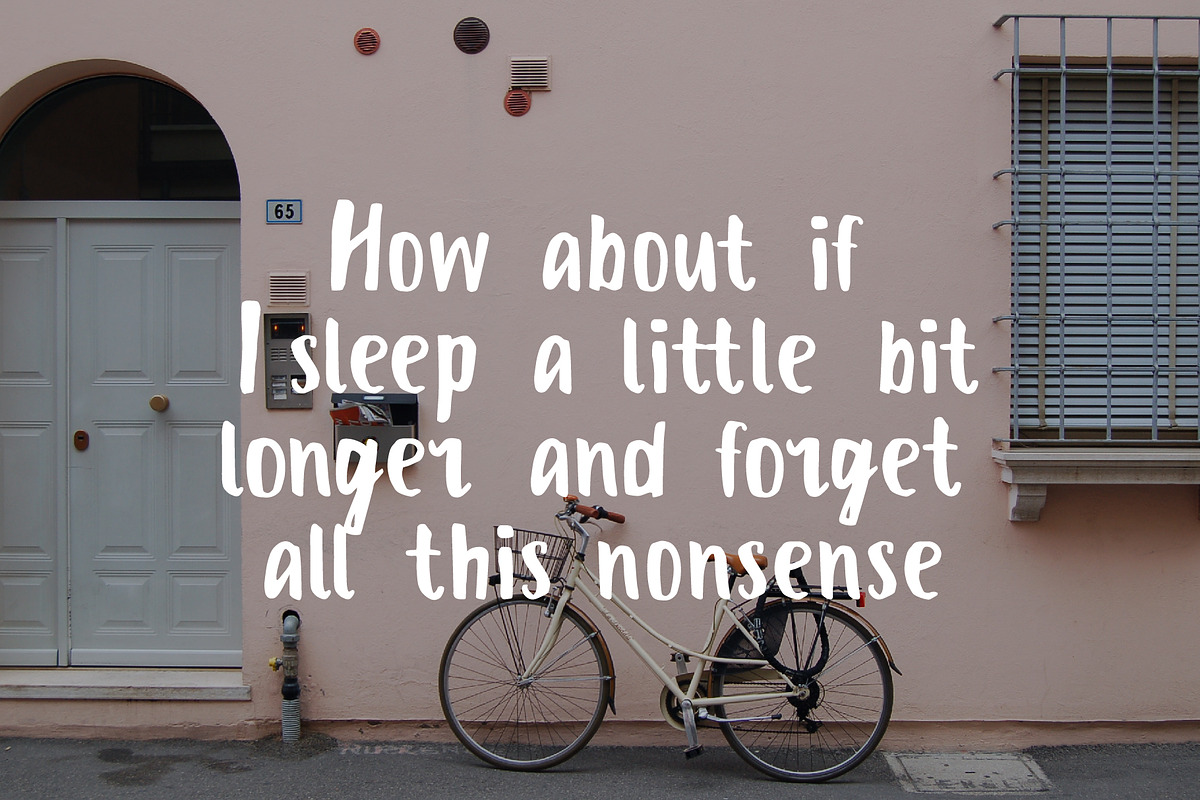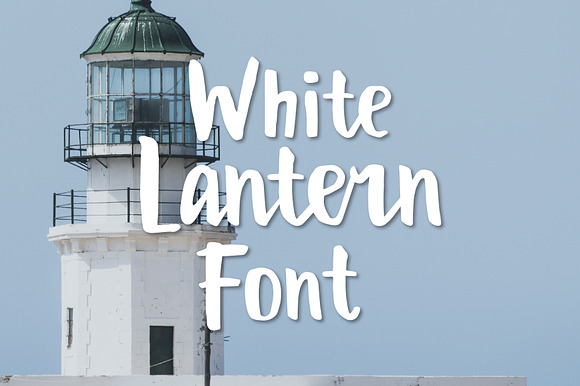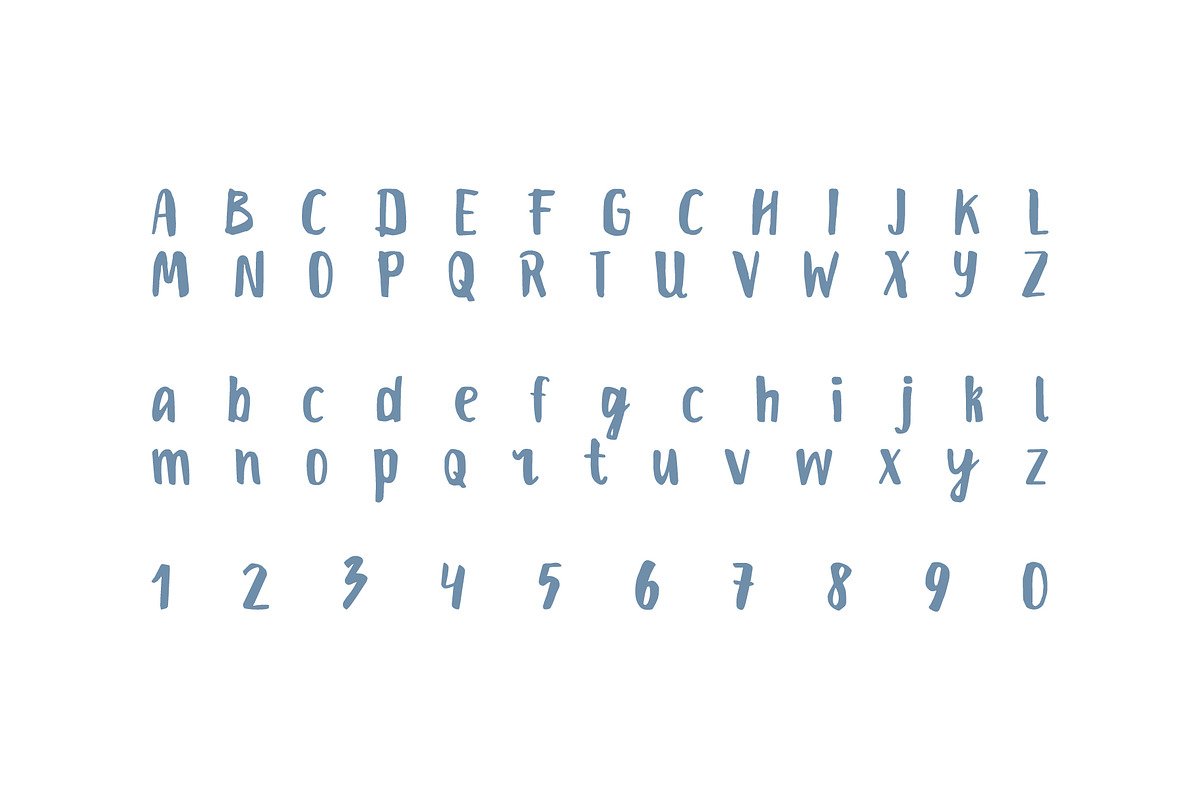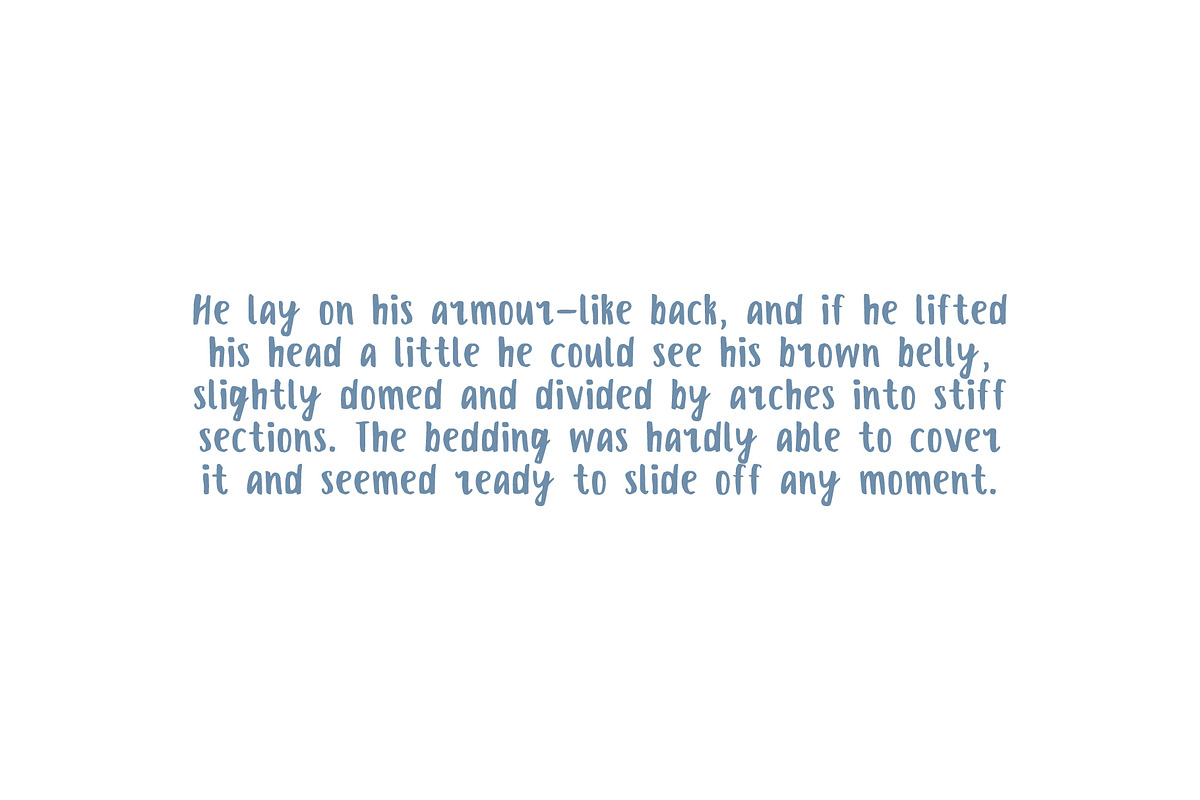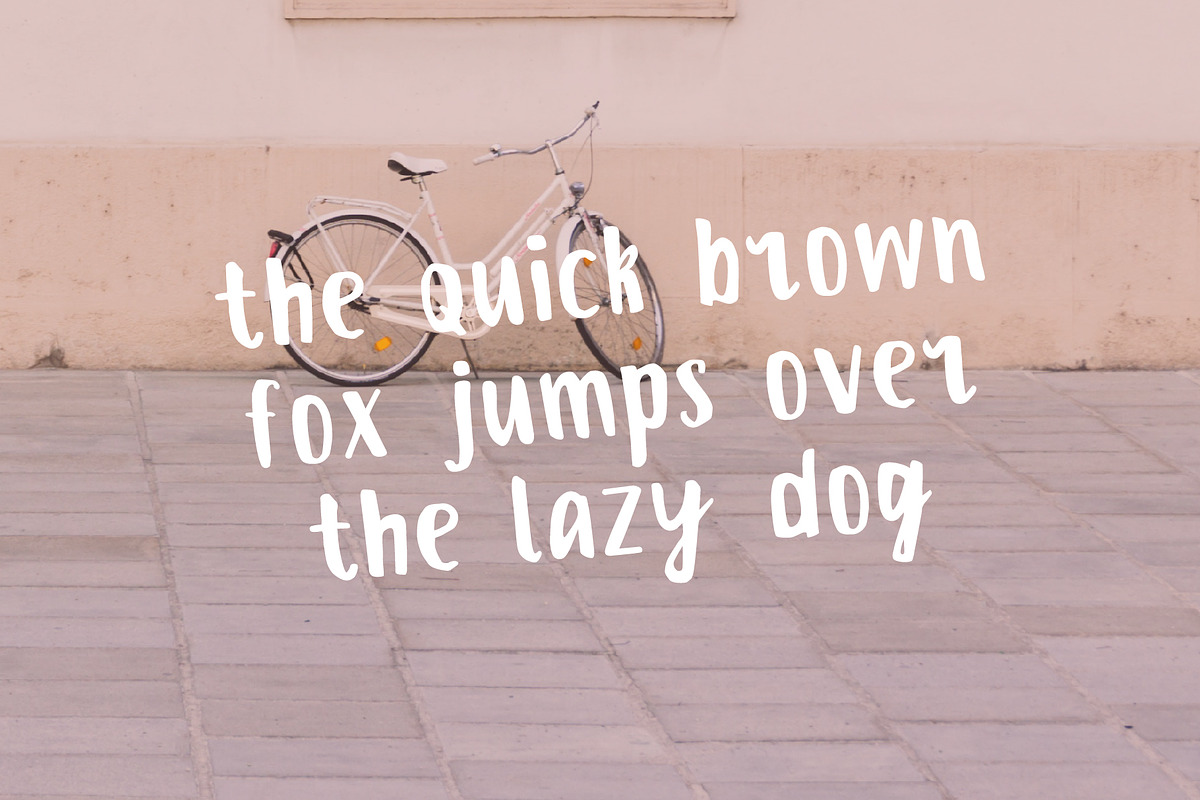
White Lantern Font
Modern handcrafted brush font. Features: Capitals, Numerals and Punctuation.
- Capitals, Numerals and Punctuation.
White Lantern Font by Unsited fits naturally into Branding, posters, packaging, typography.